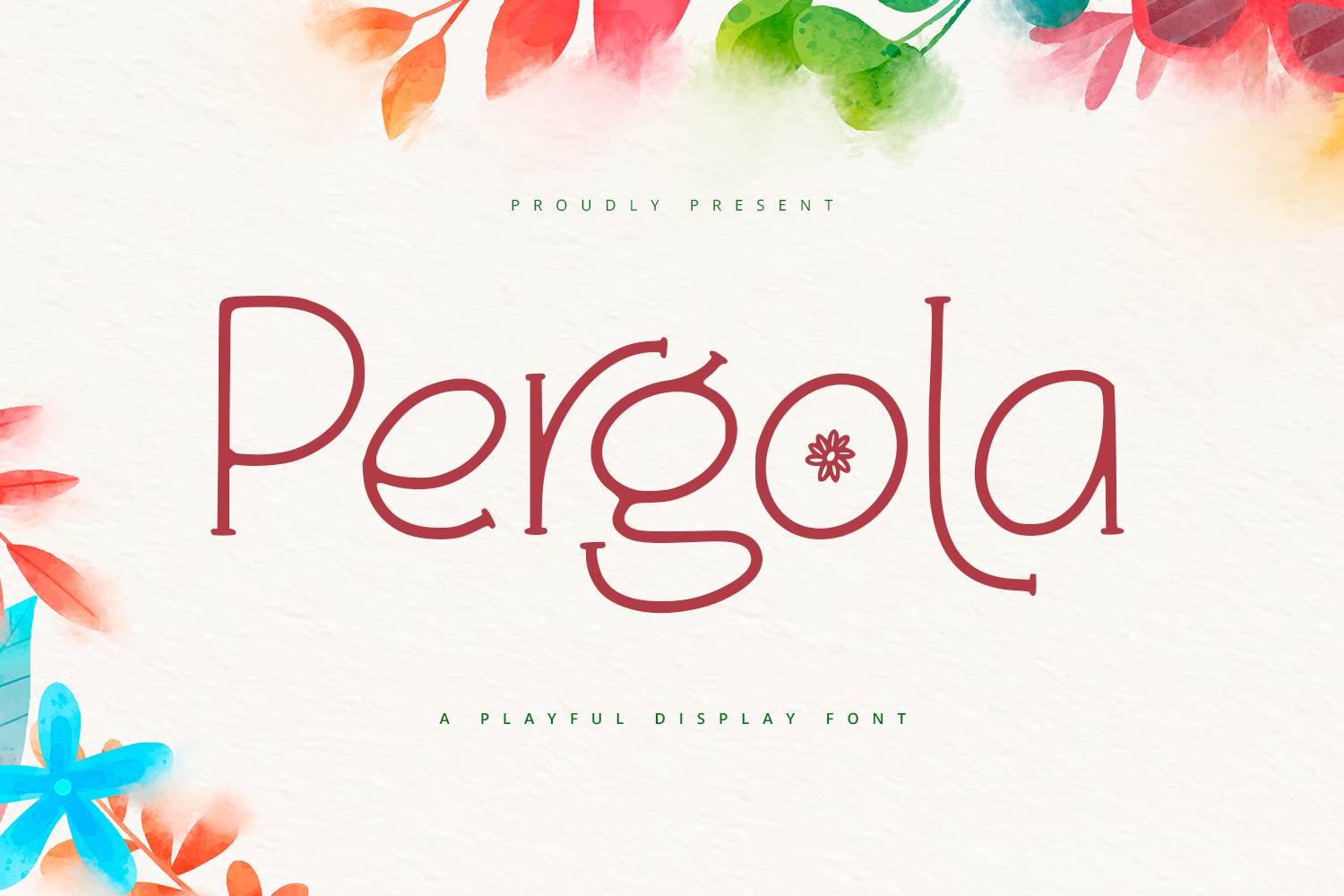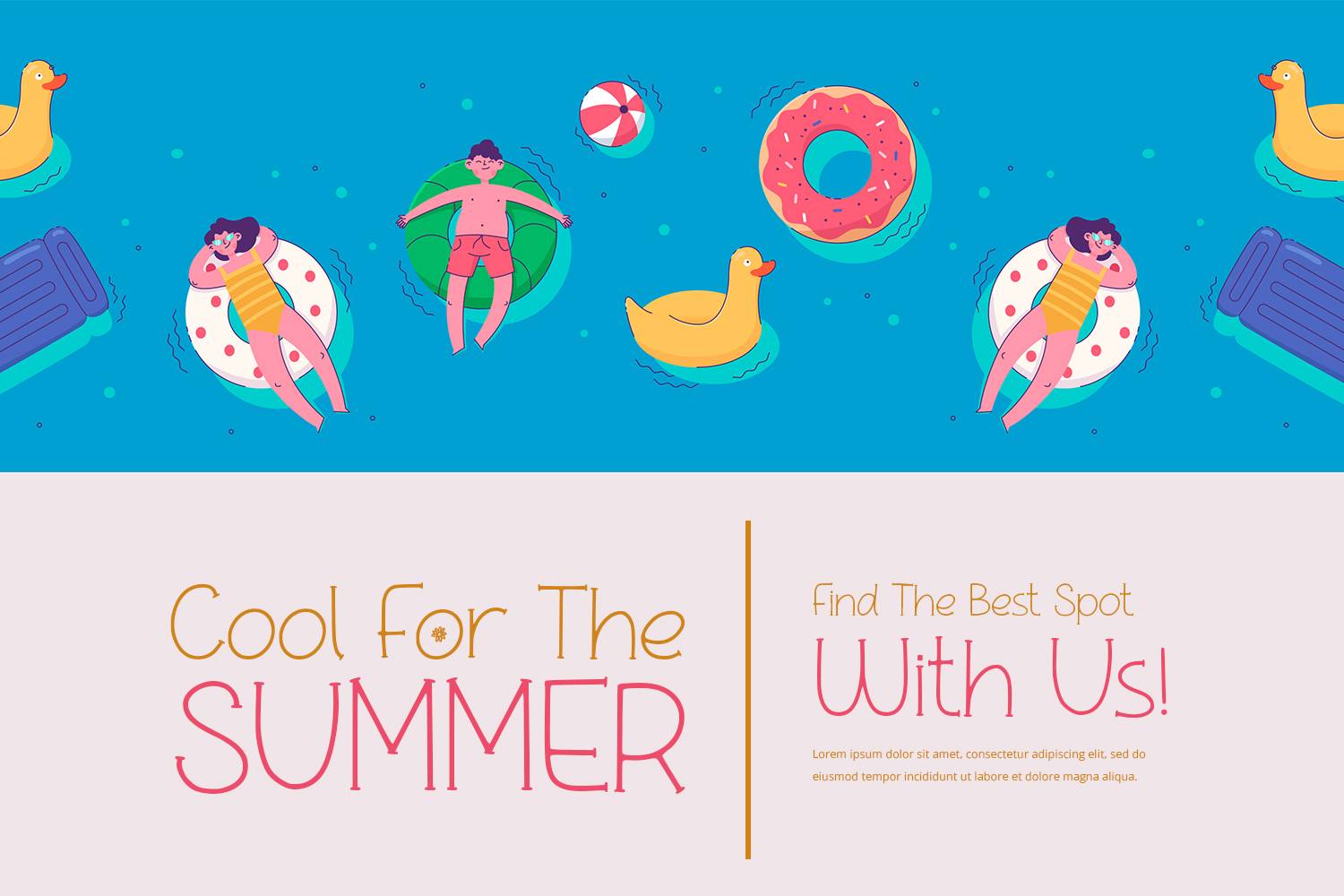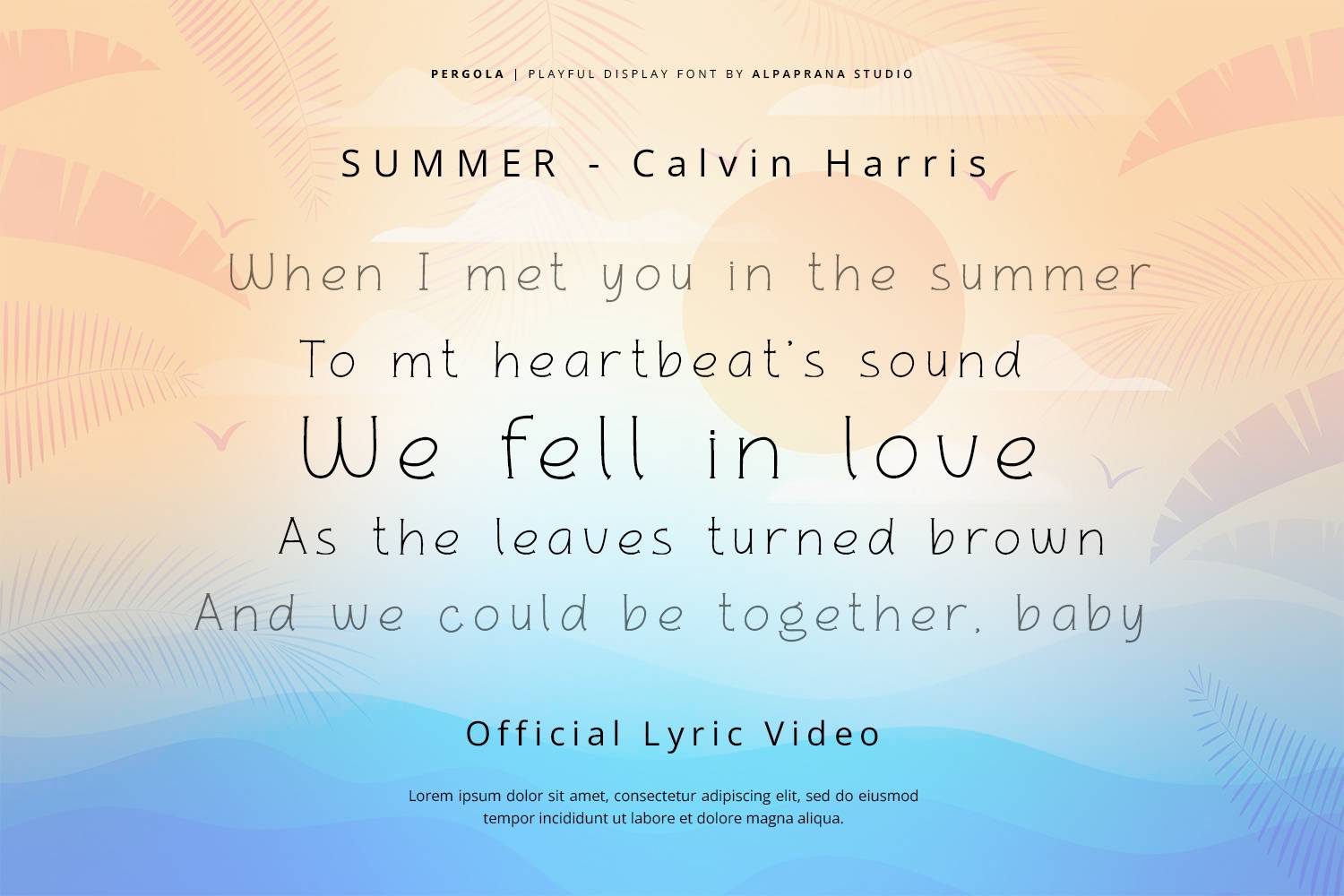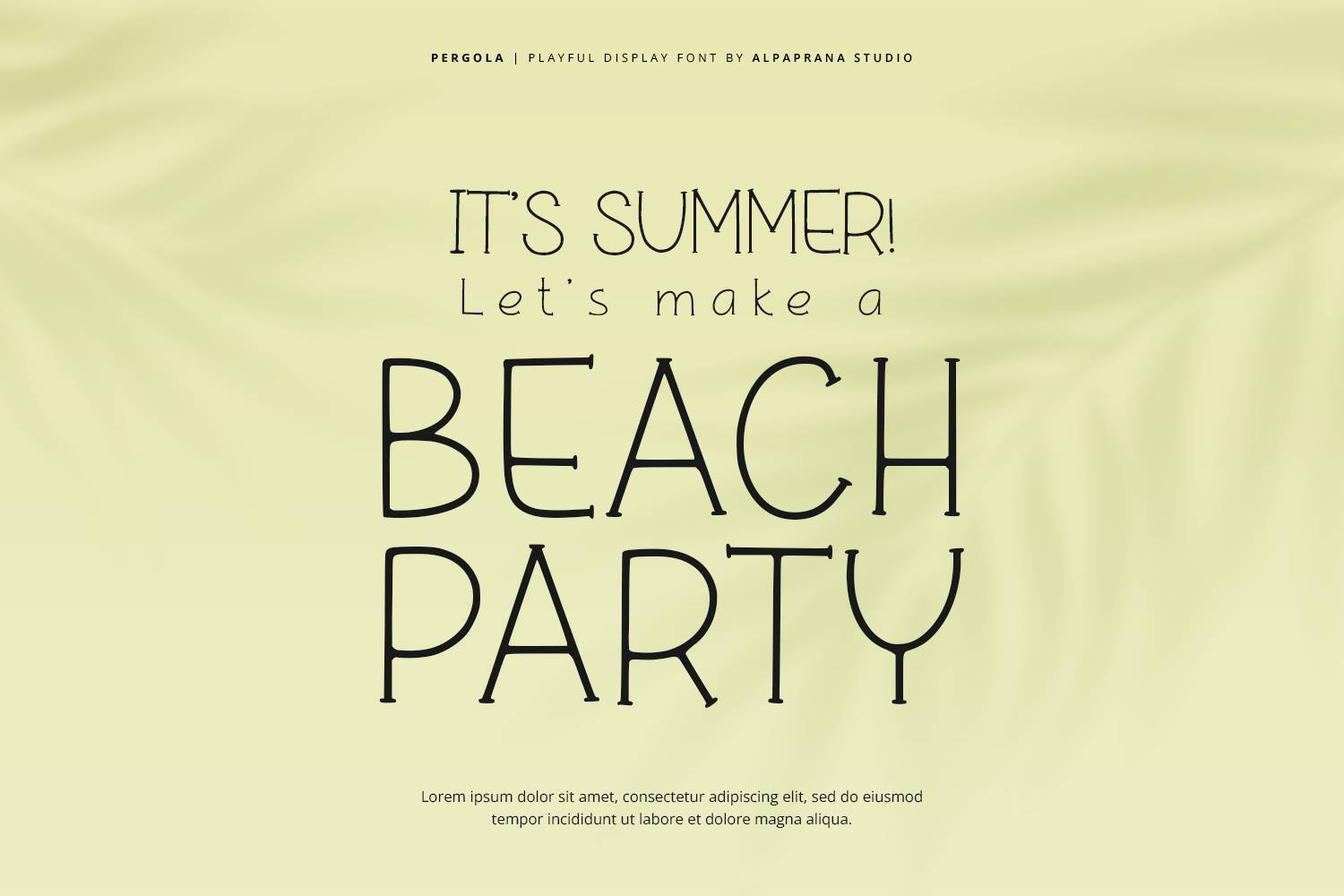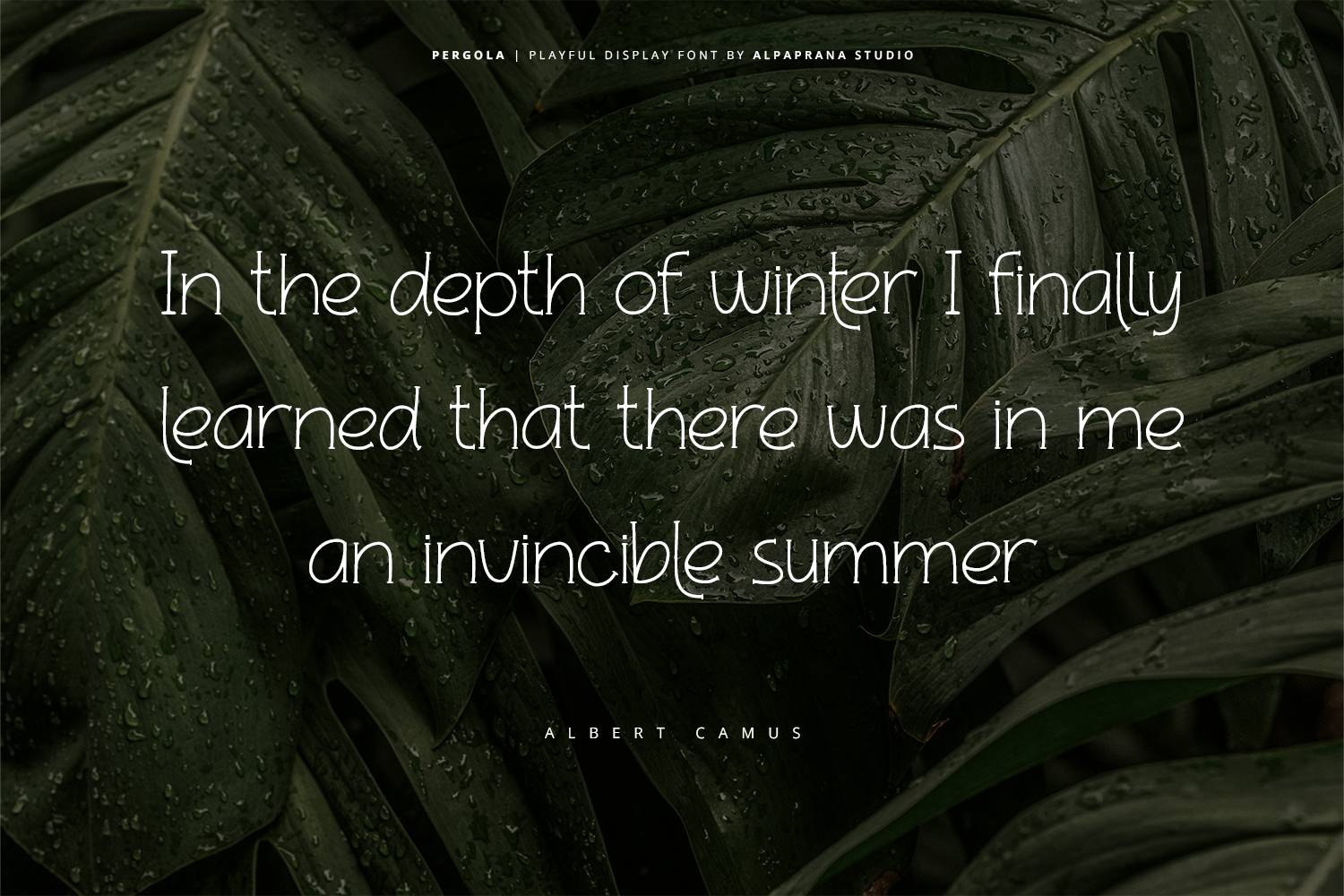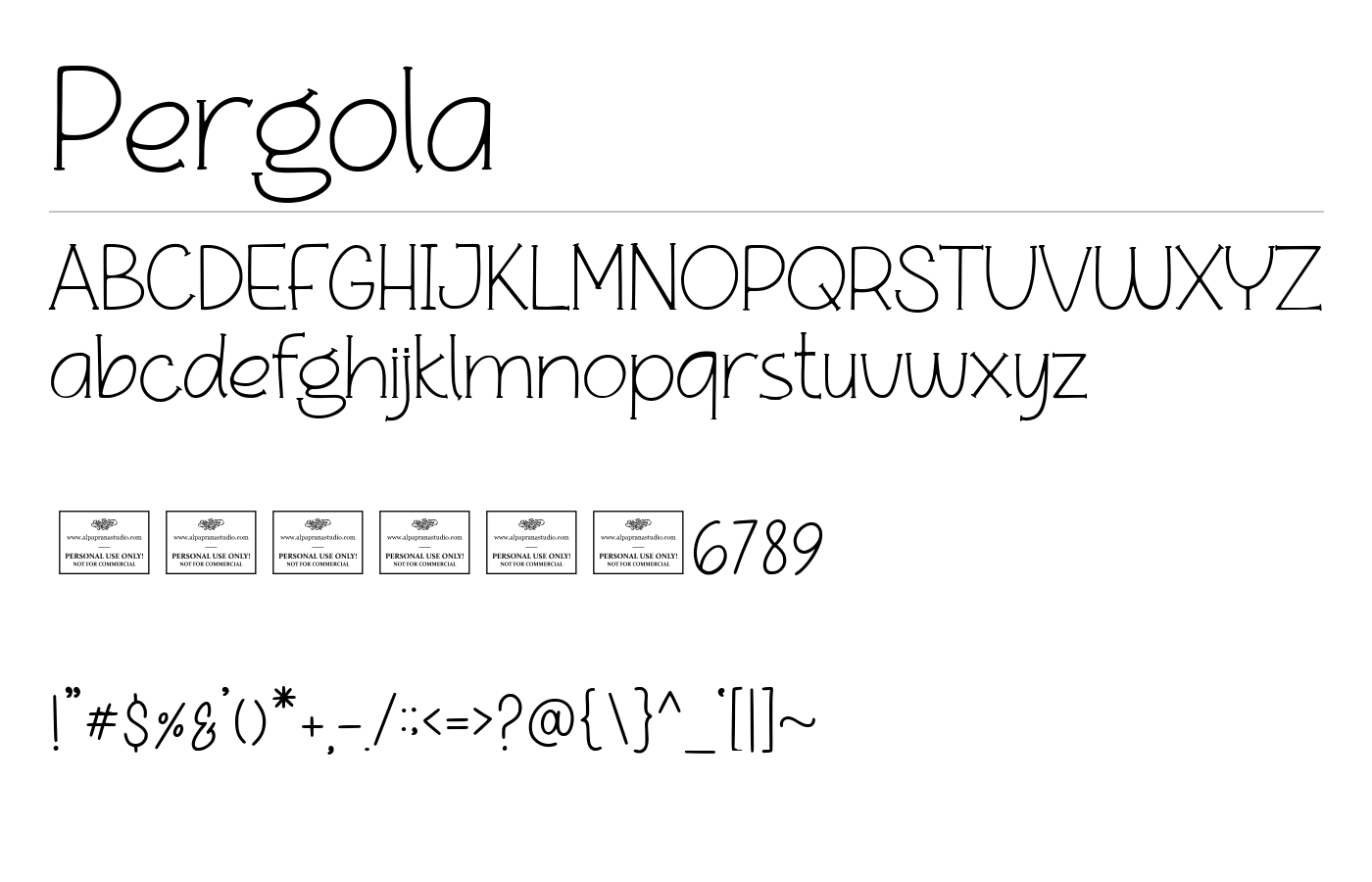
Pergola is a whimsical, handwritten-style sans serif font characterized by its tall, slender letterforms and playful irregularities. Its light weight and narrow width, combined with a low contrast stroke and unique letter shapes, give it a friendly, informal feel that works well for creative projects, casual branding, and invitations. This font adds a charming, approachable touch to designs needing a personal, artistic vibe.
Pergola Font
About Pergola Font